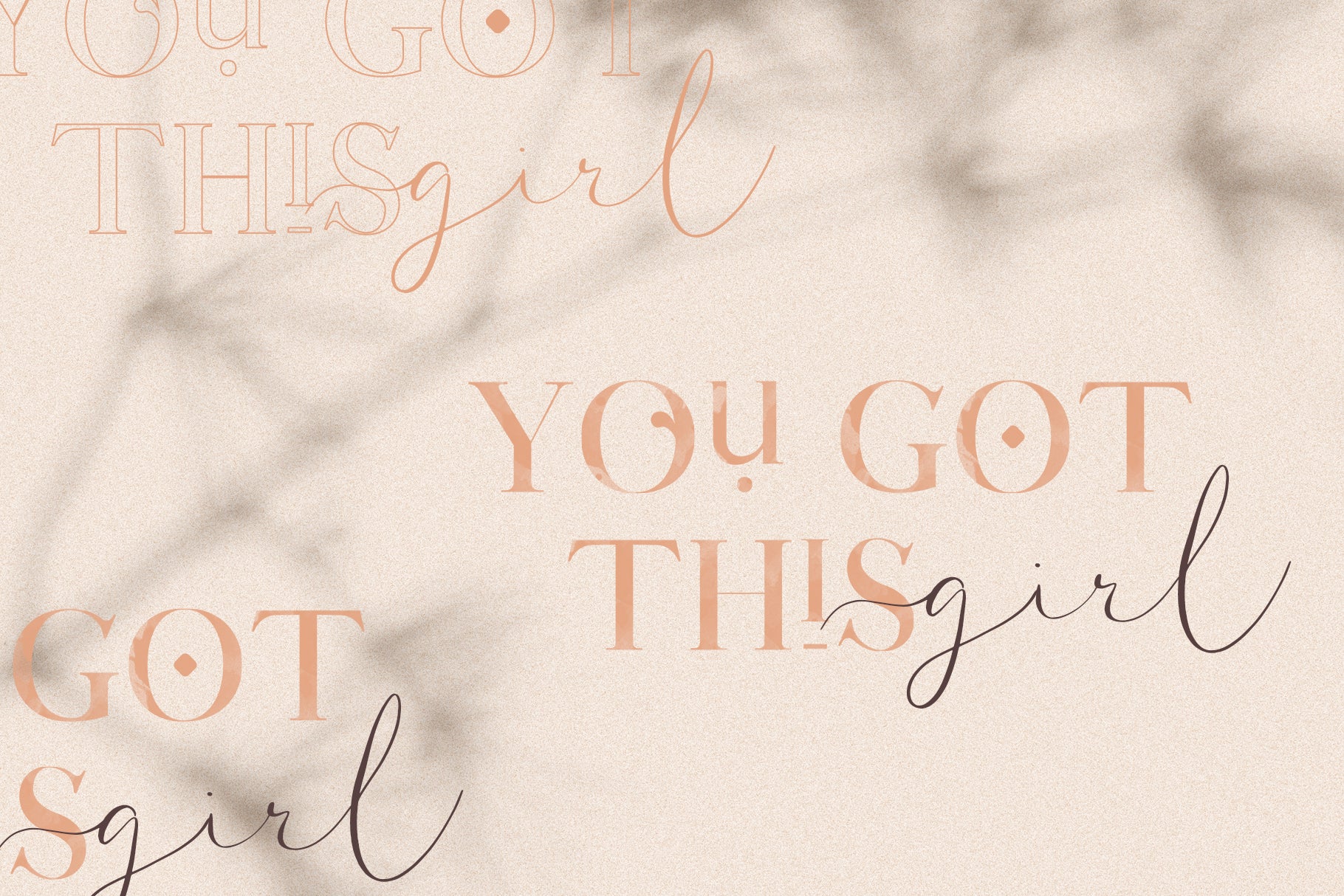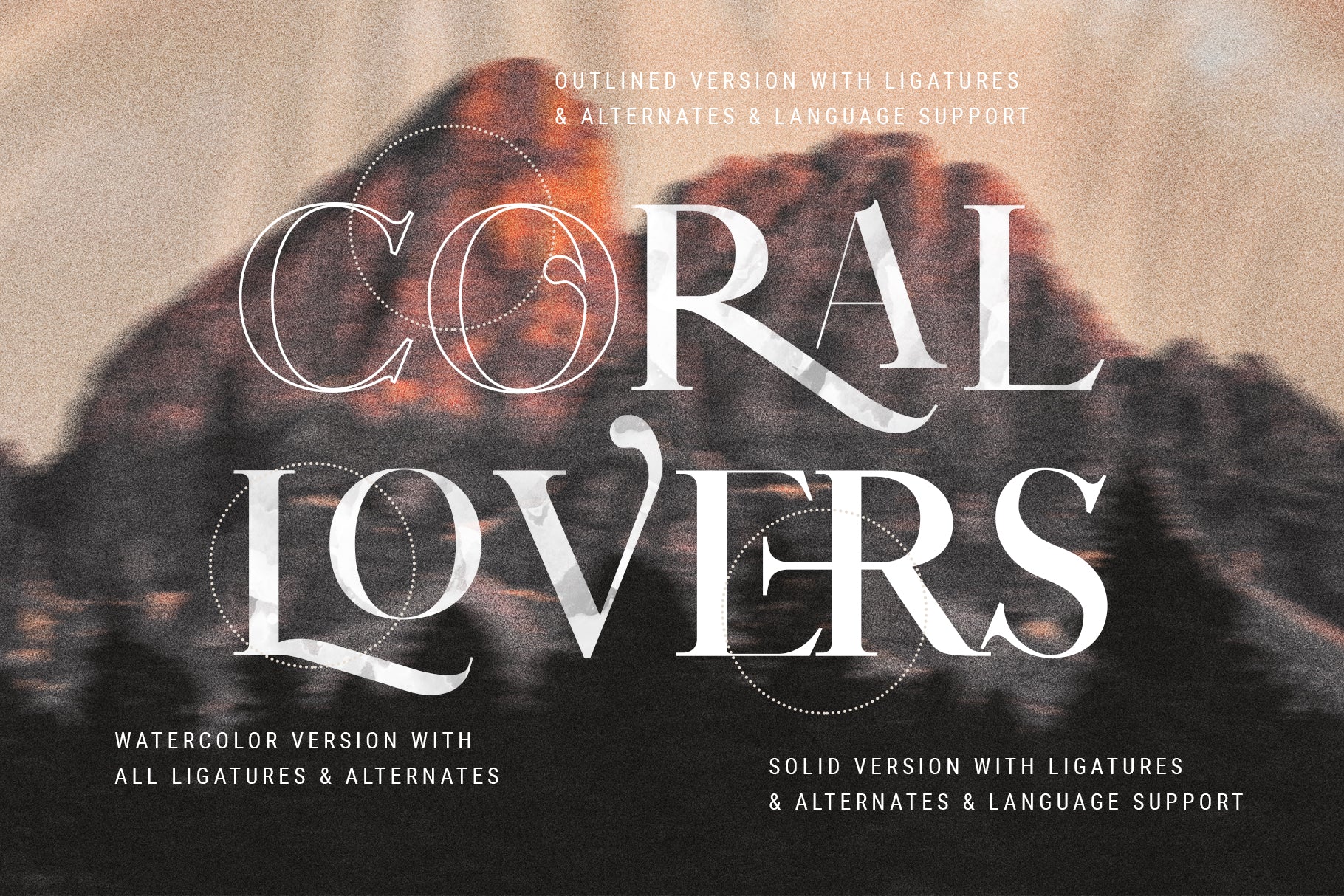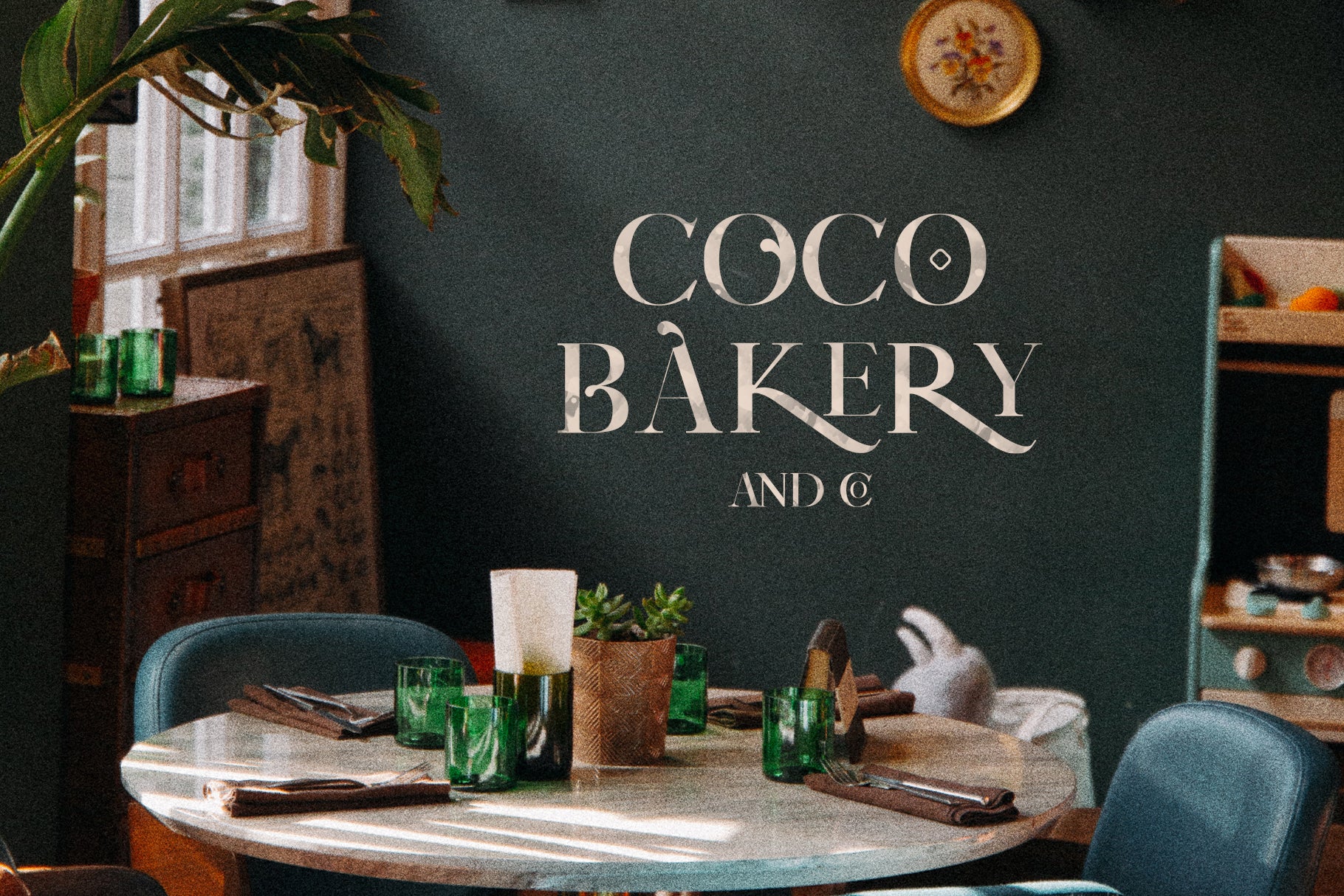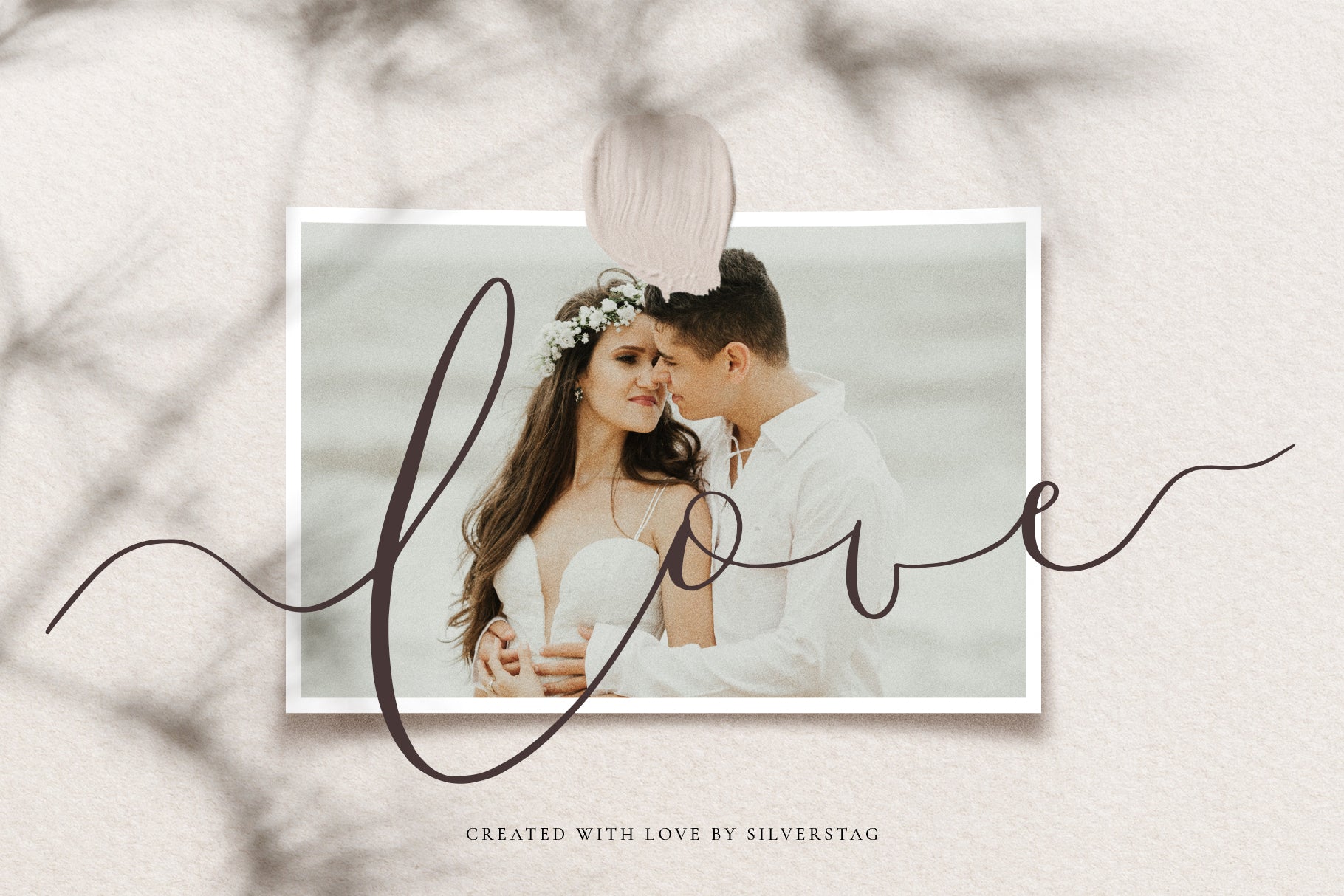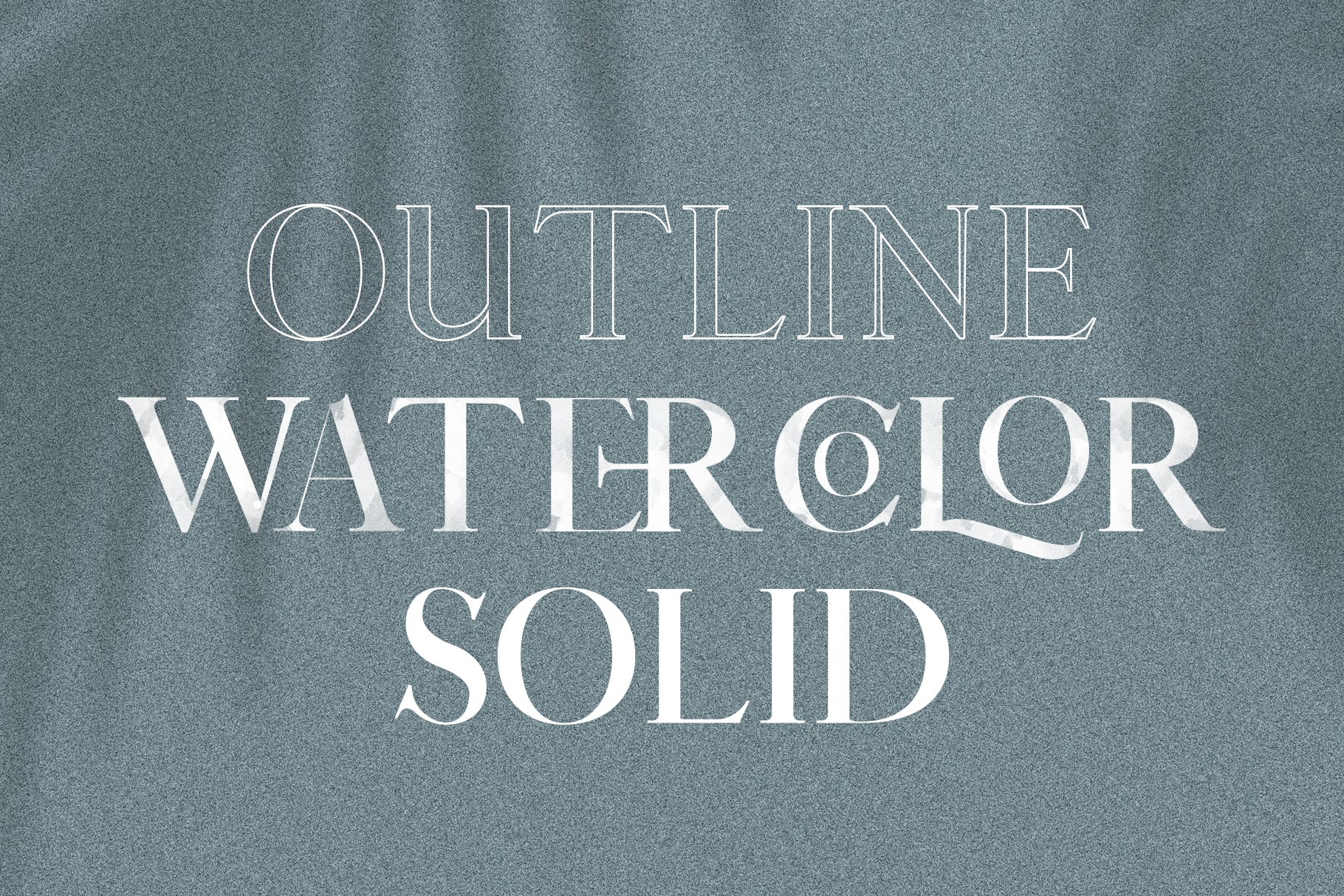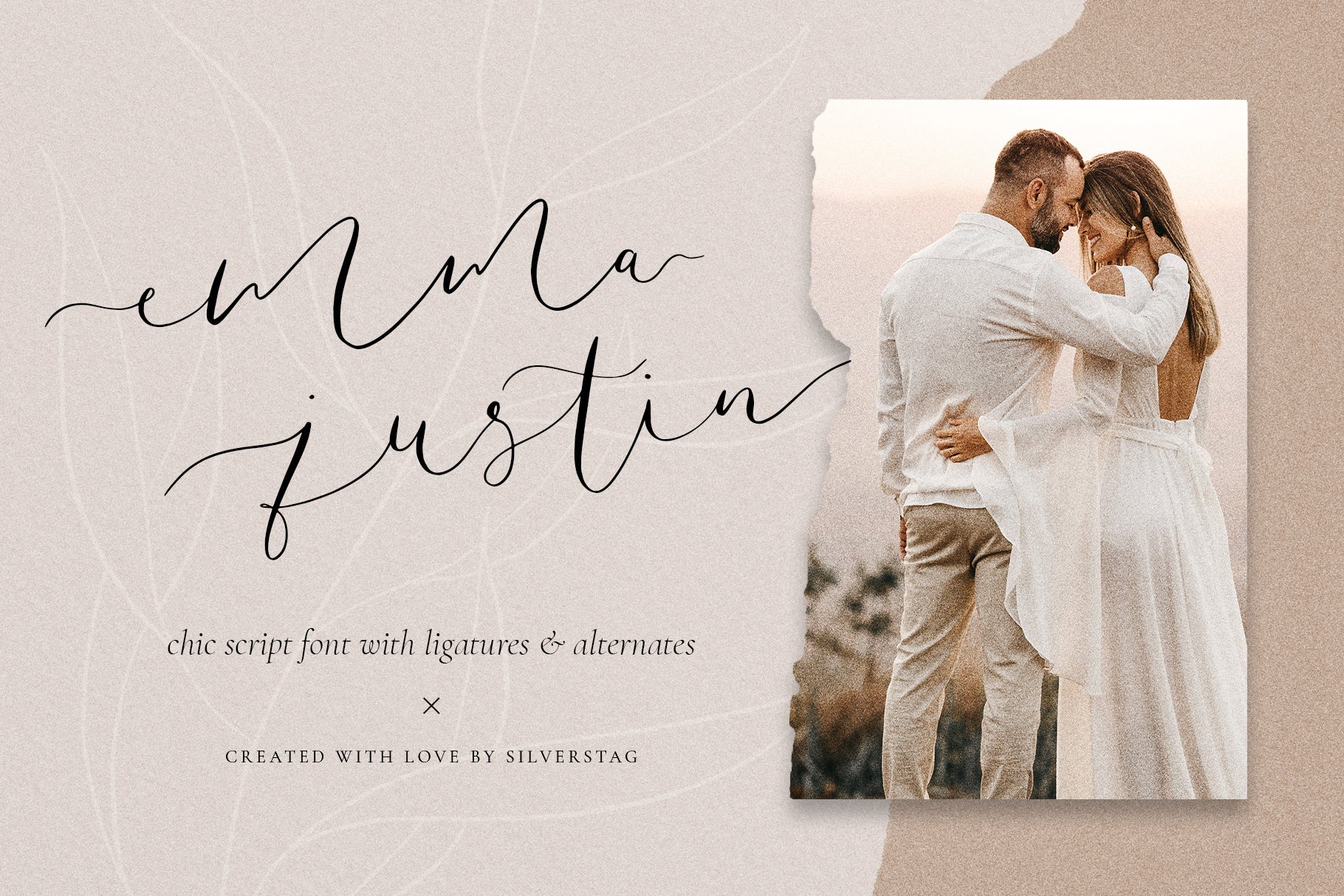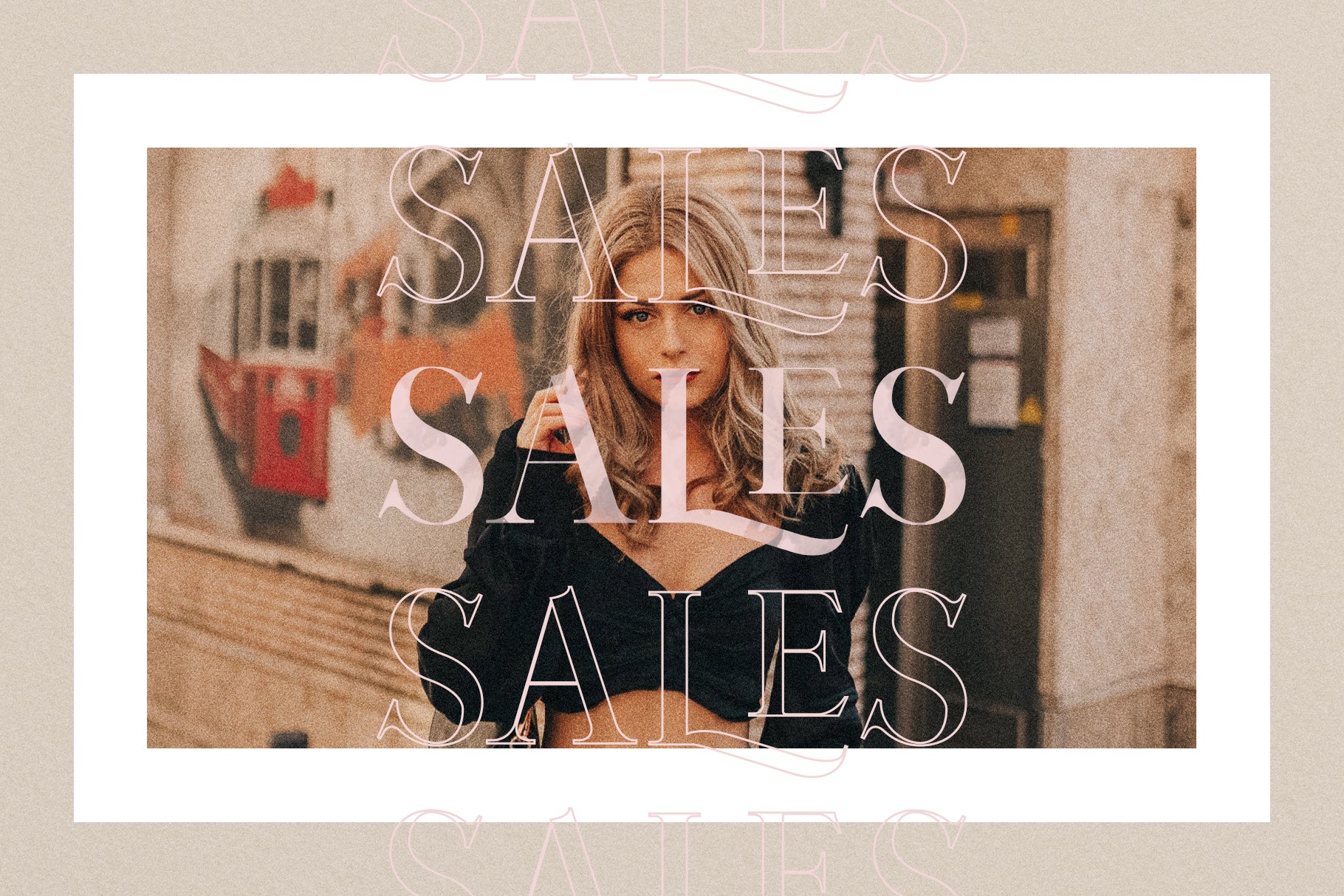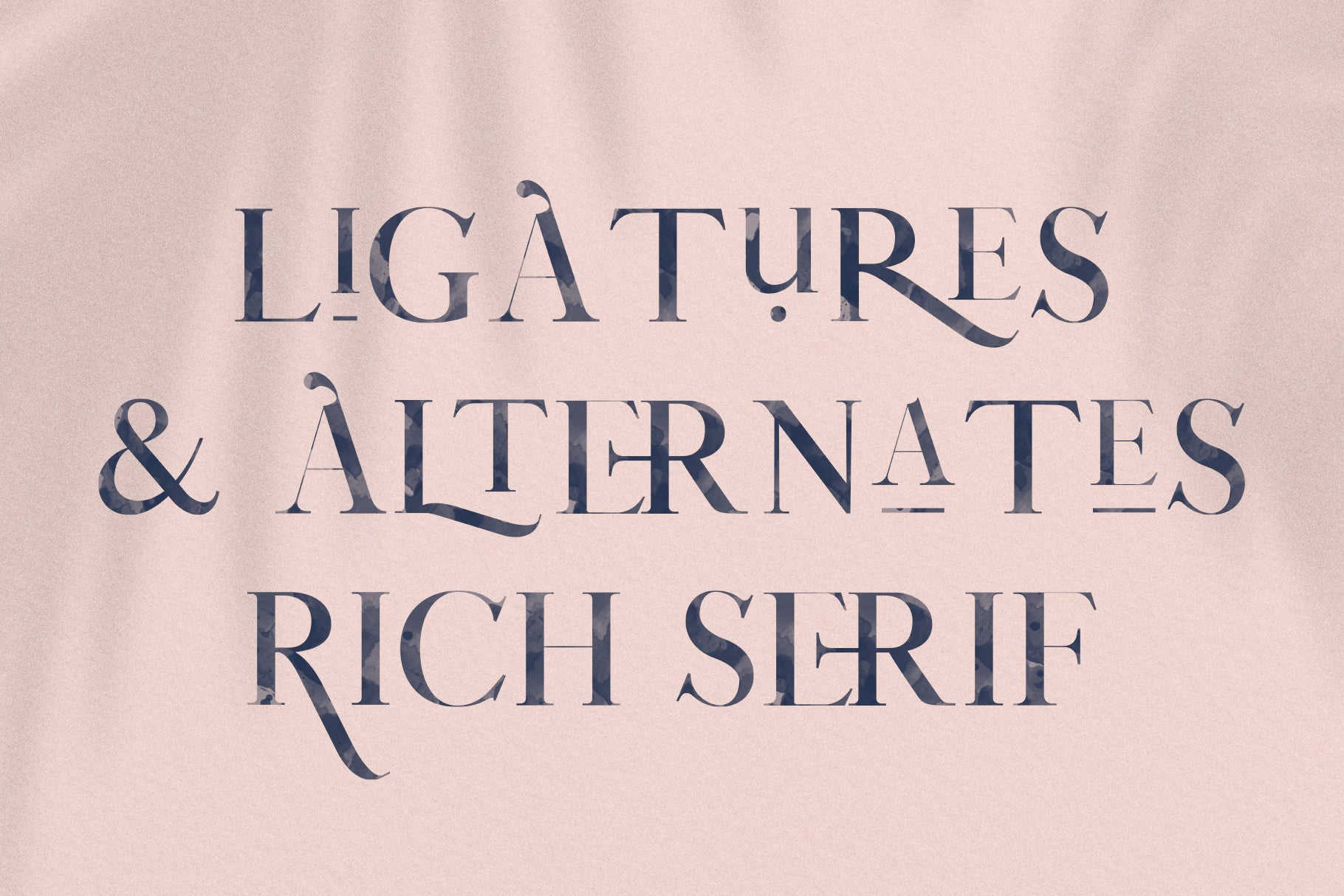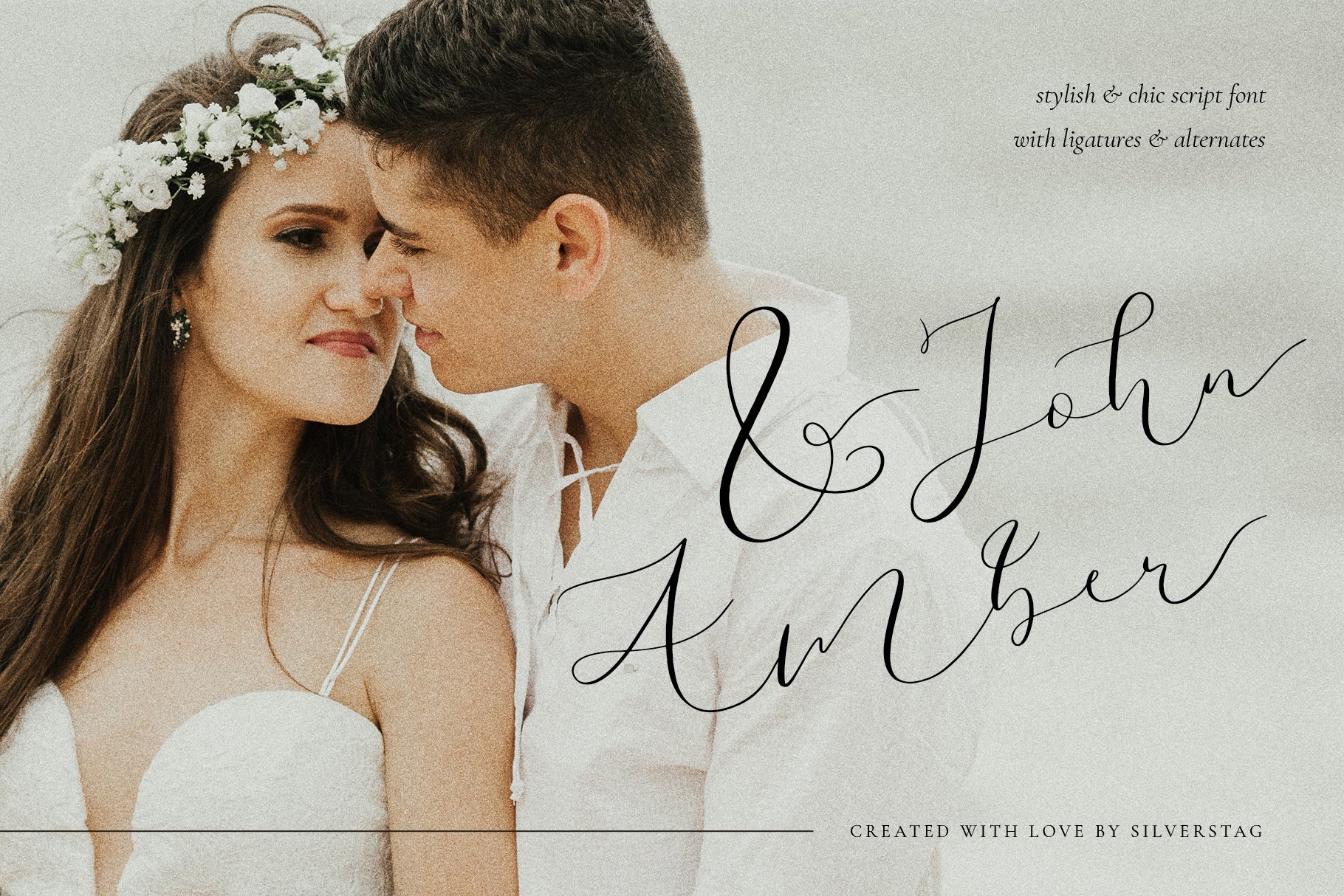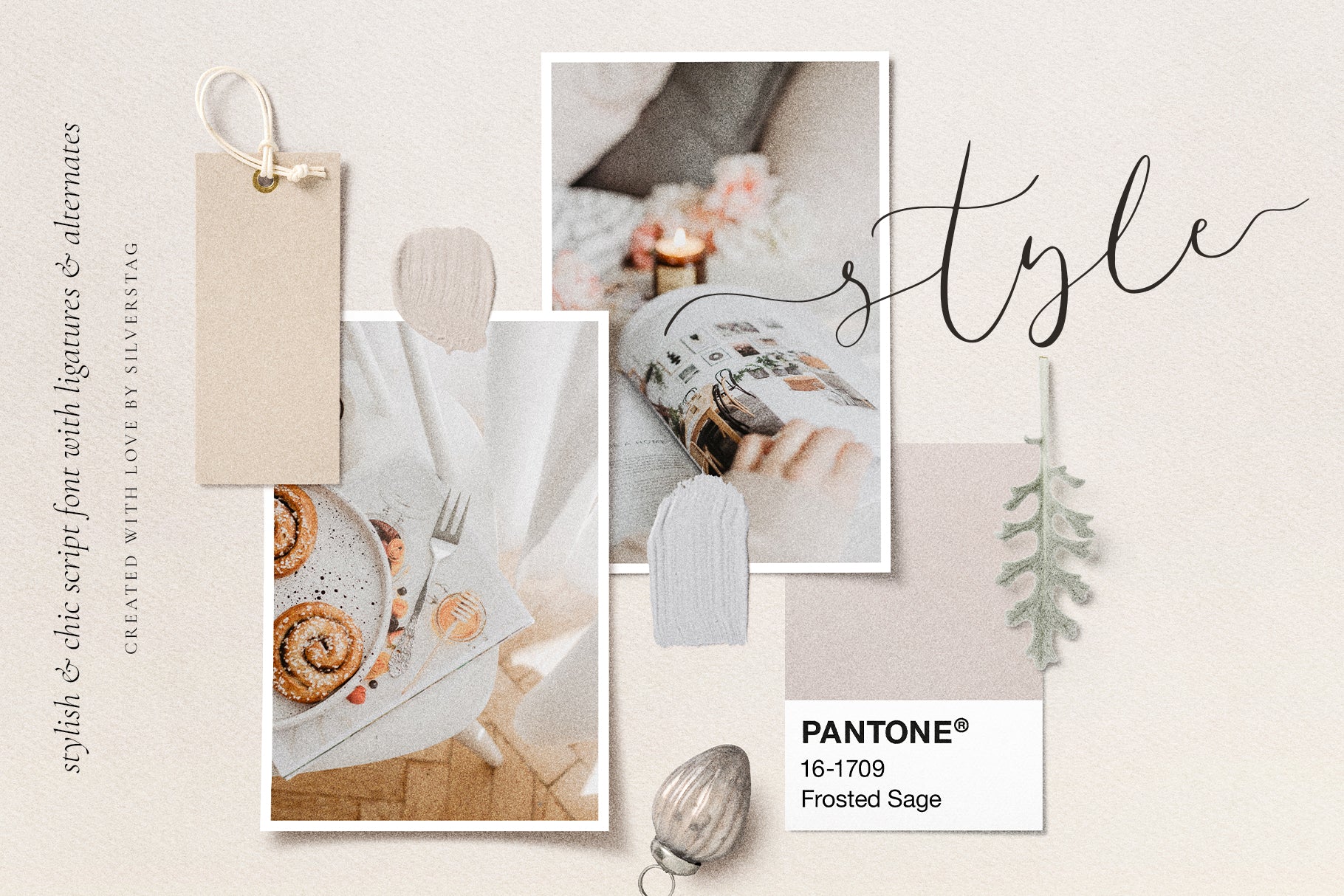
Coral Lovers SVG Watercolor Font Duo
Coral Lovers is a dreamy watercolor font duo that blends elegance and artistry into one refined package. This collection includes a hand-painted SVG serif font in three variations—Watercolor, Outline, and Solid—paired with the romantic Amelie script font, inspired by the beauty of French art and Parisian charm.
Each font in the Coral Lovers duo comes packed with over 150 ligatures and alternates, giving you limitless creative potential for branding, invitations, packaging, social media, and more. Whether you’re designing for luxury weddings or creating moody Instagram templates, Coral Lovers adds a signature-style sophistication to every project.
Elegant, handcrafted, and visually stunning—Coral Lovers is made for designers who want their work to feel intimate and unique.